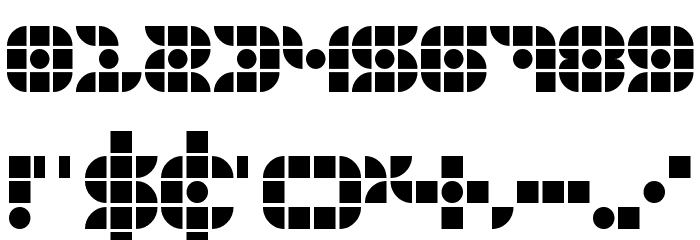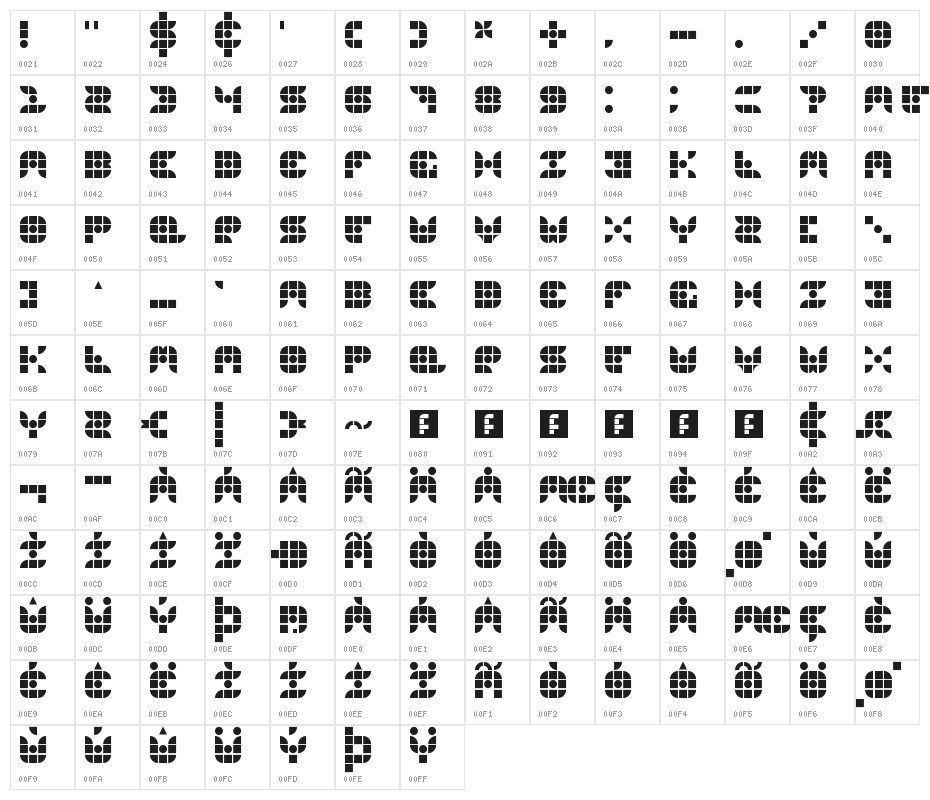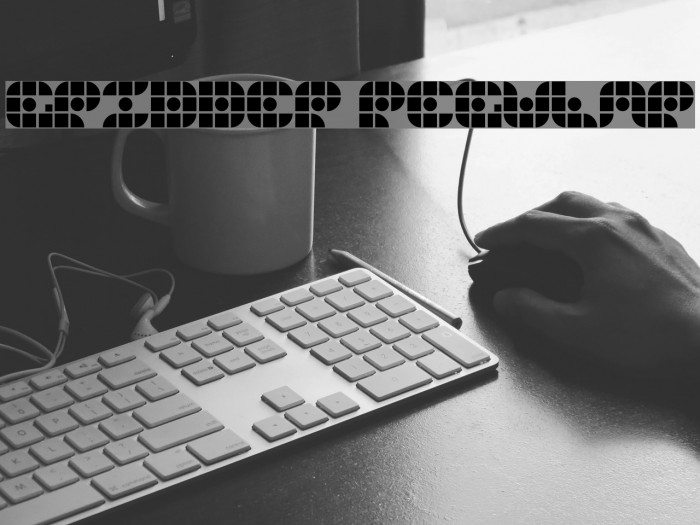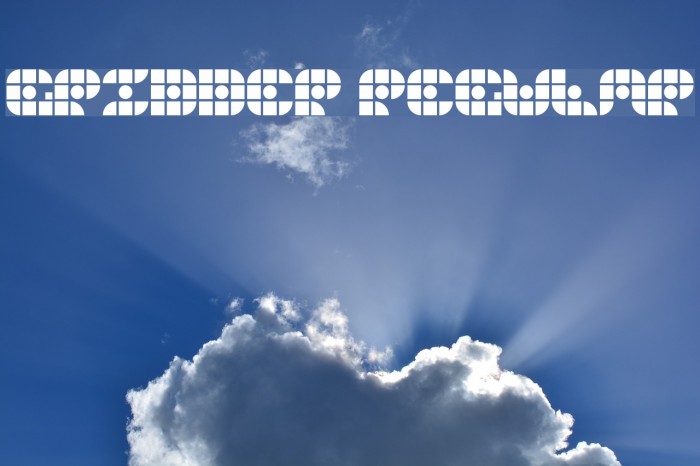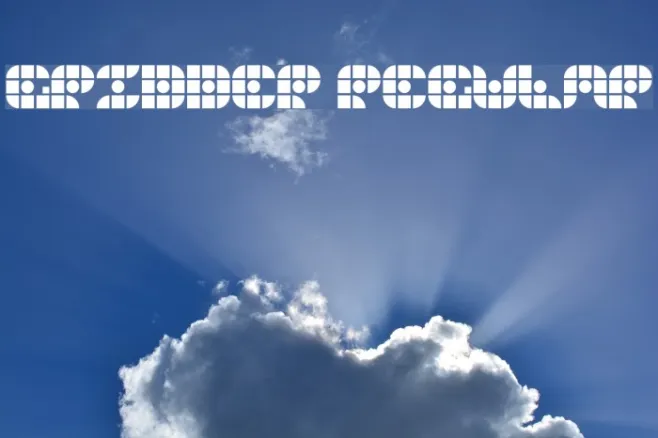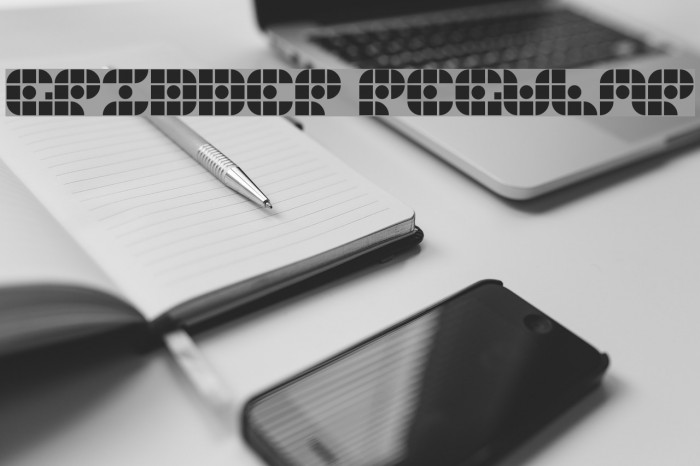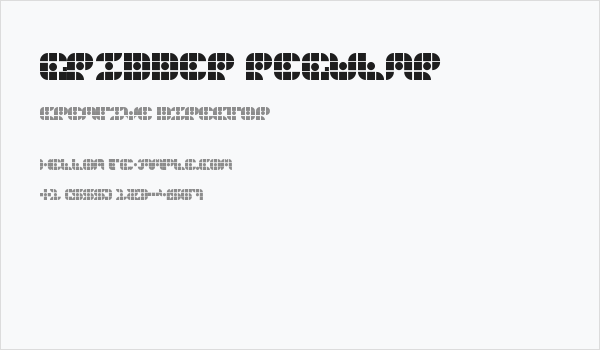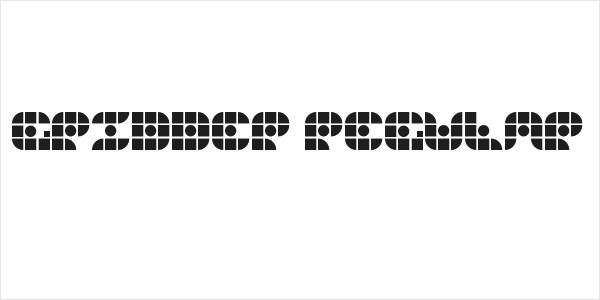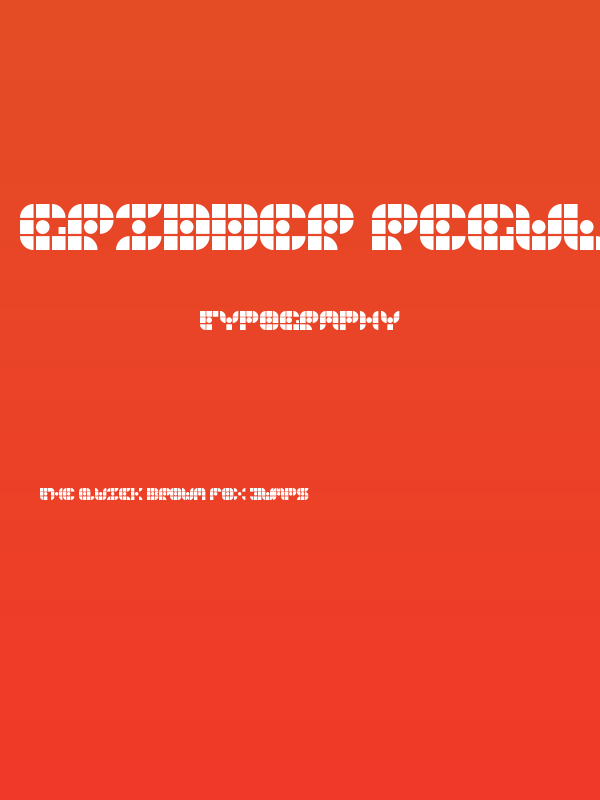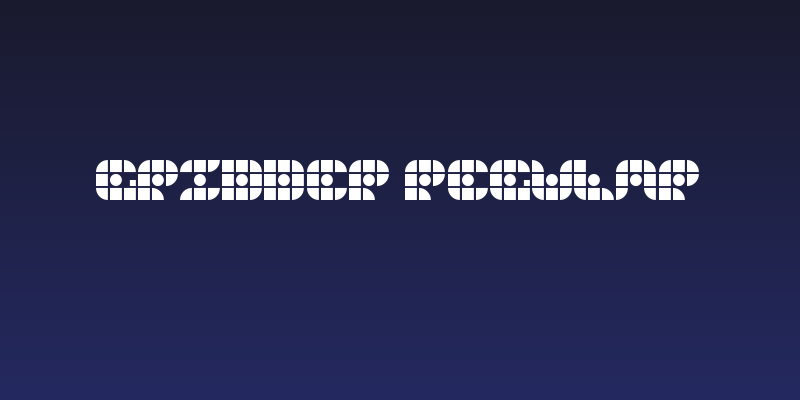
Gridder Regular Font
Gridder Regular Description
This font features a unique grid-based design, where each character is composed of geometric shapes that fit together like a puzzle. The bold, blocky appearance gives it a futuristic and digital feel, reminiscent of pixel art or early computer graphics. The characters are uniform in height and width, creating a cohesive and structured look. Despite its rigid grid structure, the font maintains readability with distinct shapes for each letter and number. The special characters are creatively integrated into the grid pattern, adding to the overall aesthetic. This font is ideal for projects that require a modern, tech-inspired look.
| Proposed Projects | Ideal for tech-themed designs, digital art projects, video game graphics, and futuristic branding. |